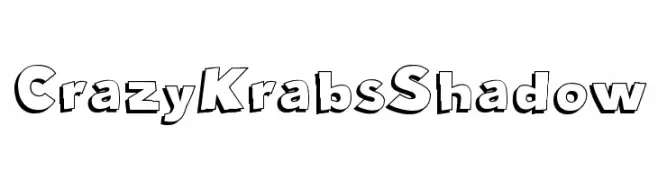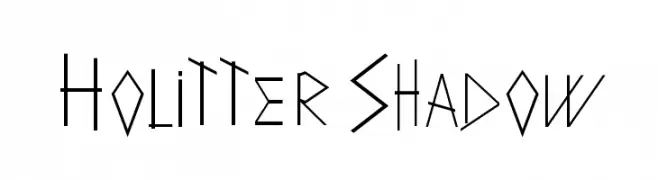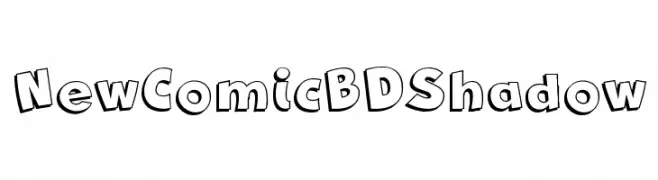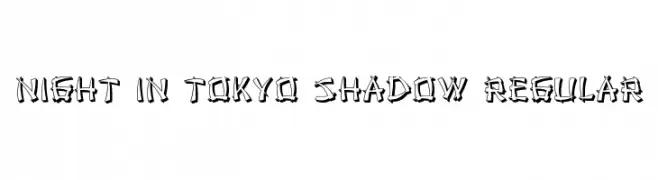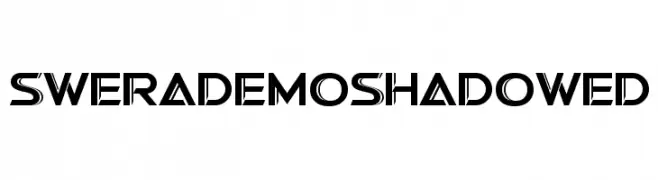
A bold, shadowed font with a three-dimensional, geometric style.
Bold, three-dimensional font with shadow effects and a vintage poster style.
A bold, geometric font with a three-dimensional shadow effect.
A bold, playful font with a distinctive shadow effect and whimsical style.
A modern, angular font with a unique shadow effect for a 3D appearance.
A bold, geometric font with a shadow effect for a modern, futuristic look.
A bold, geometric font with a striking shadow effect for a 3D appearance.
A bold, graffiti-inspired font with a dynamic shadow effect.
A bold, playful font with a shadow effect and cartoonish style.
A bold, comic-style font with a playful shadow effect.